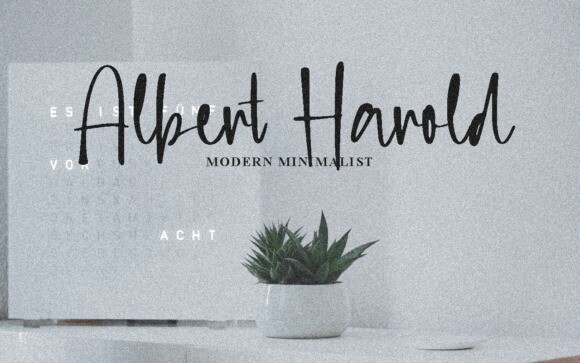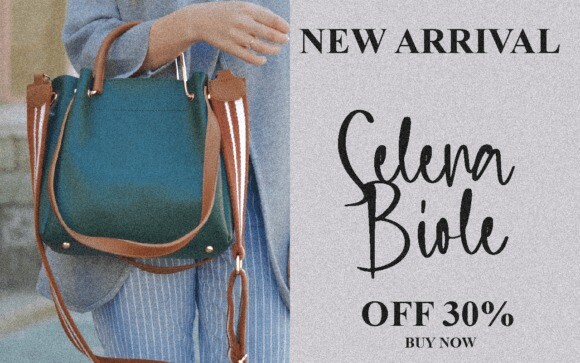
Destine Maren Font
This script font is a stunning example of artistry and grace, with its intricate details and flowing lines creating a sense of elegance and refinement. Its beauty is undeniable, adding a touch of sophistication to any design project, and making it the perfect choice for those seeking a touch of timeless charm.